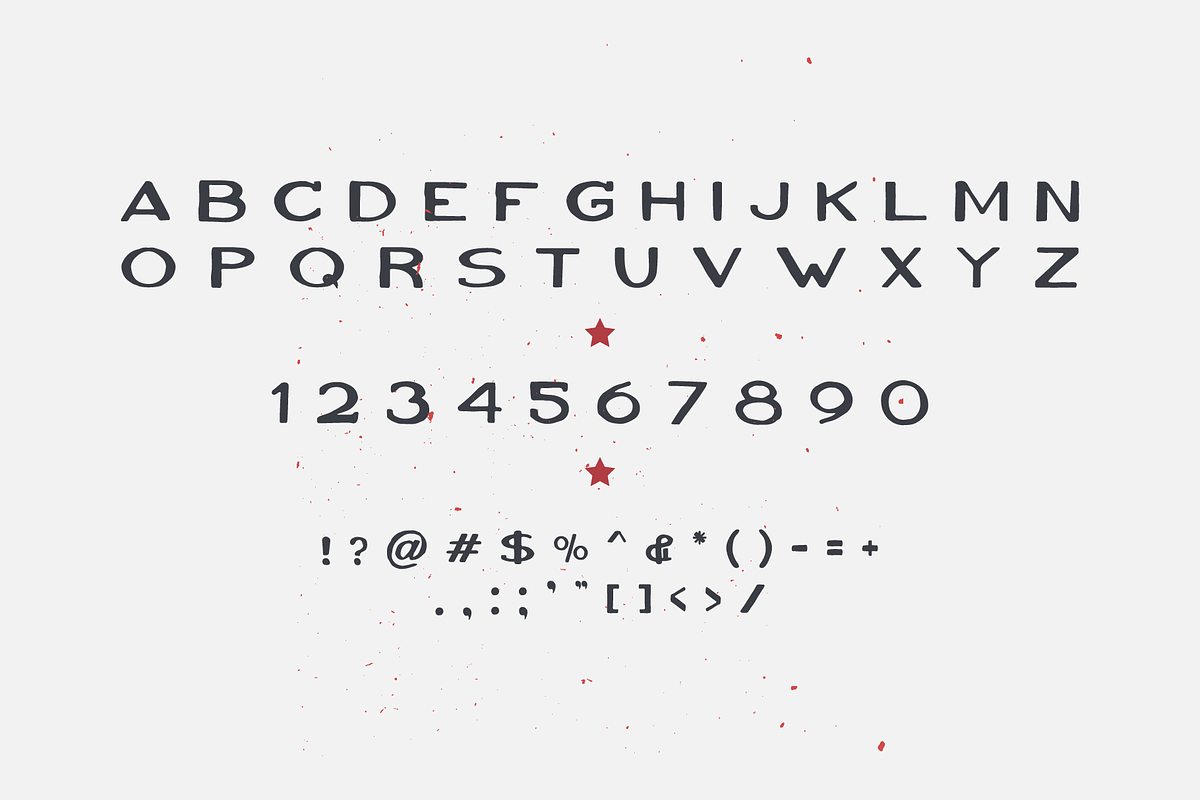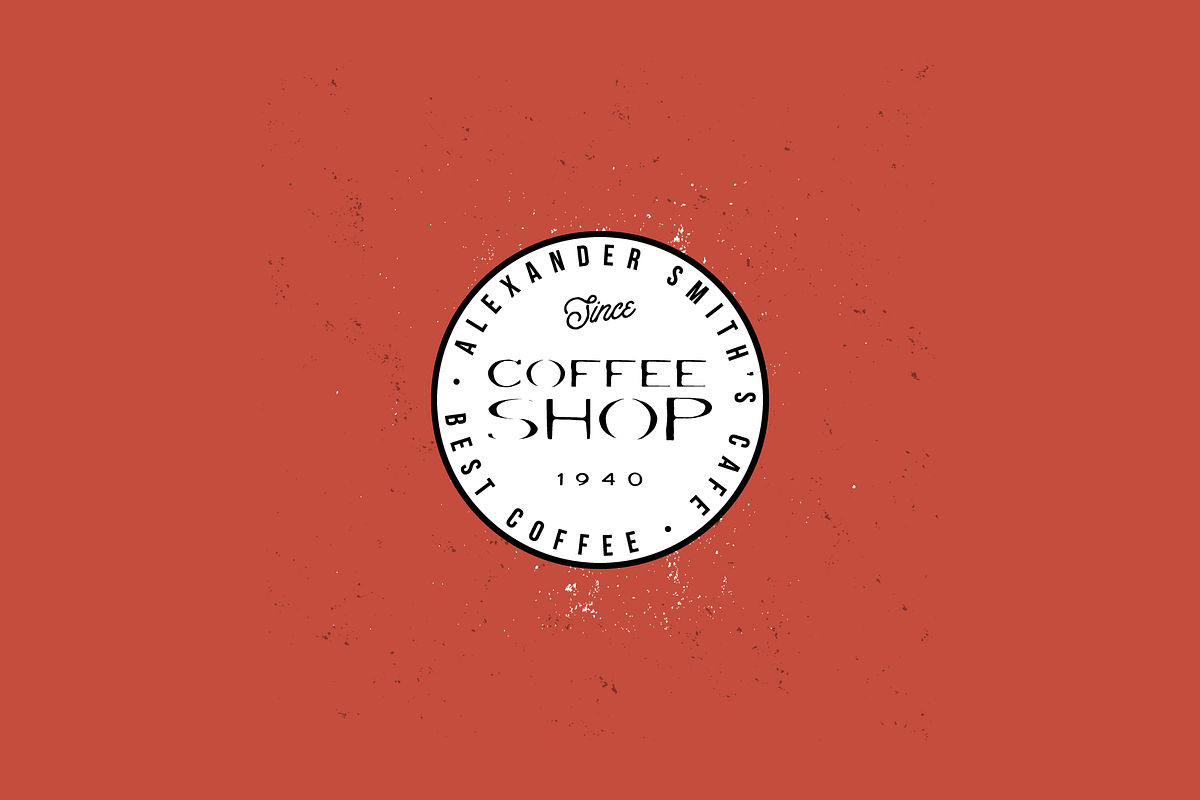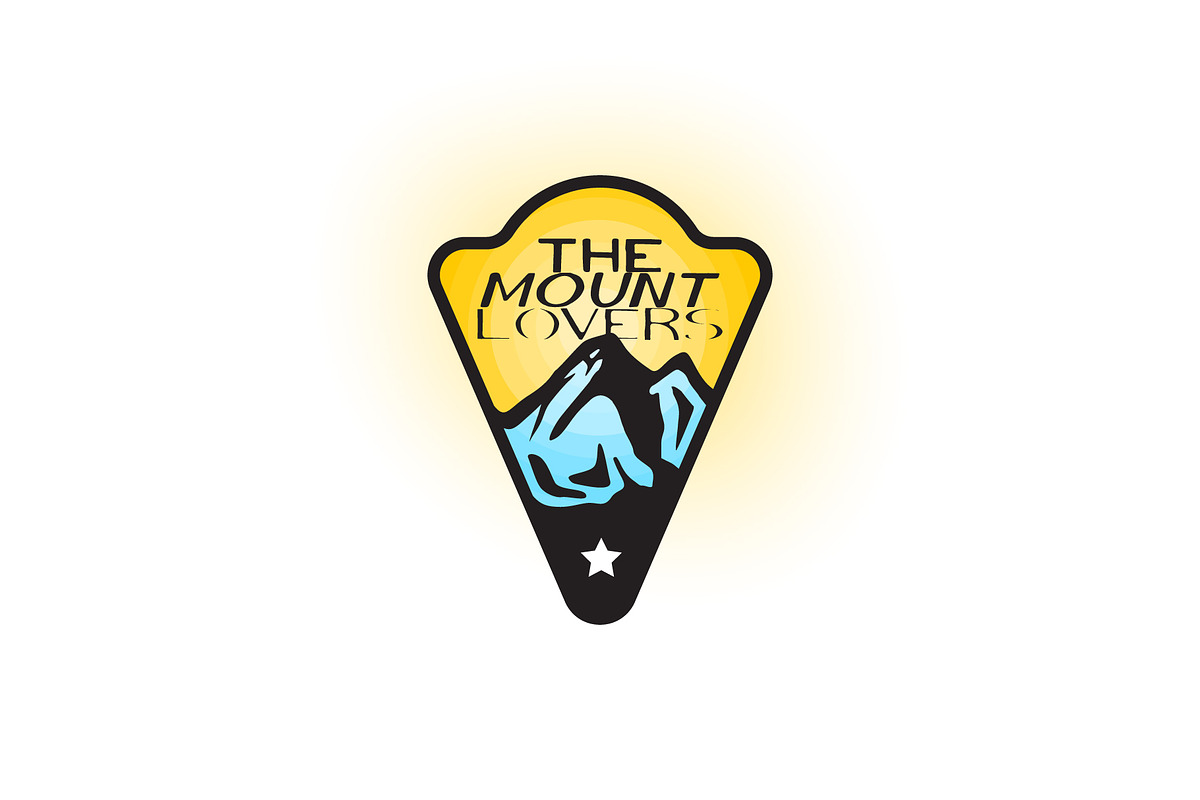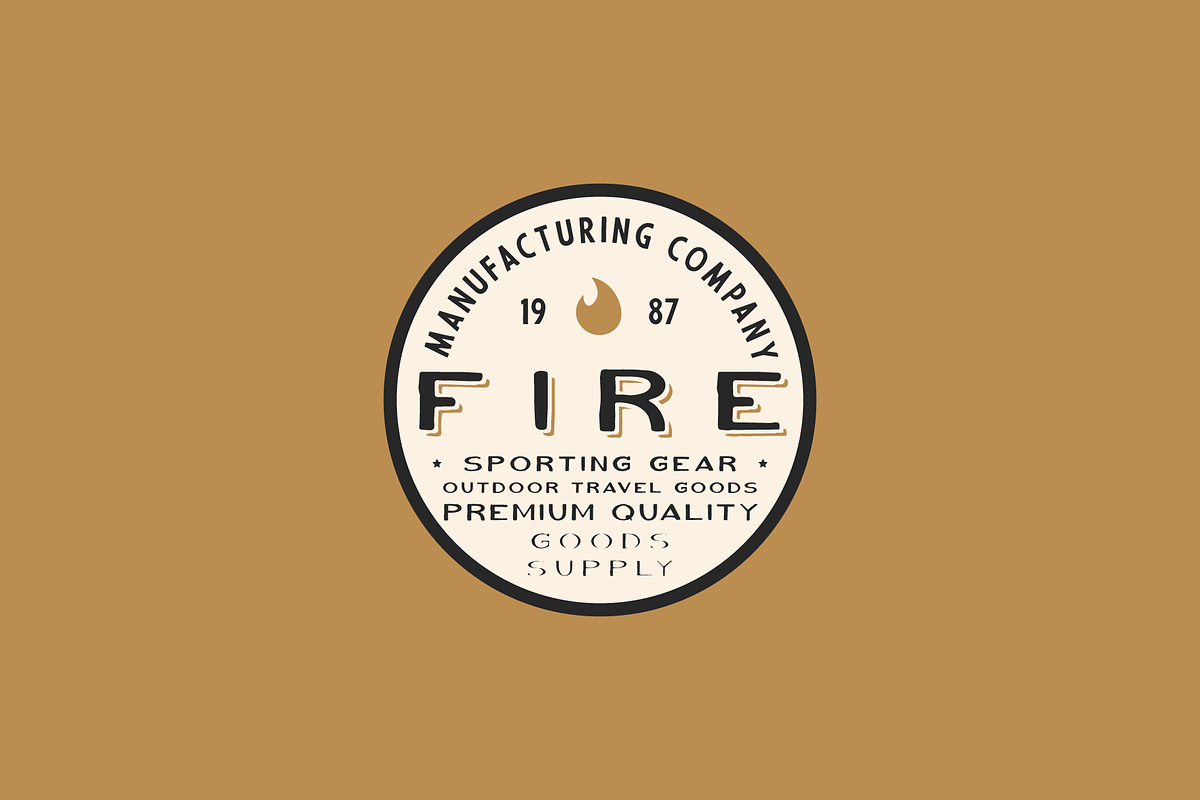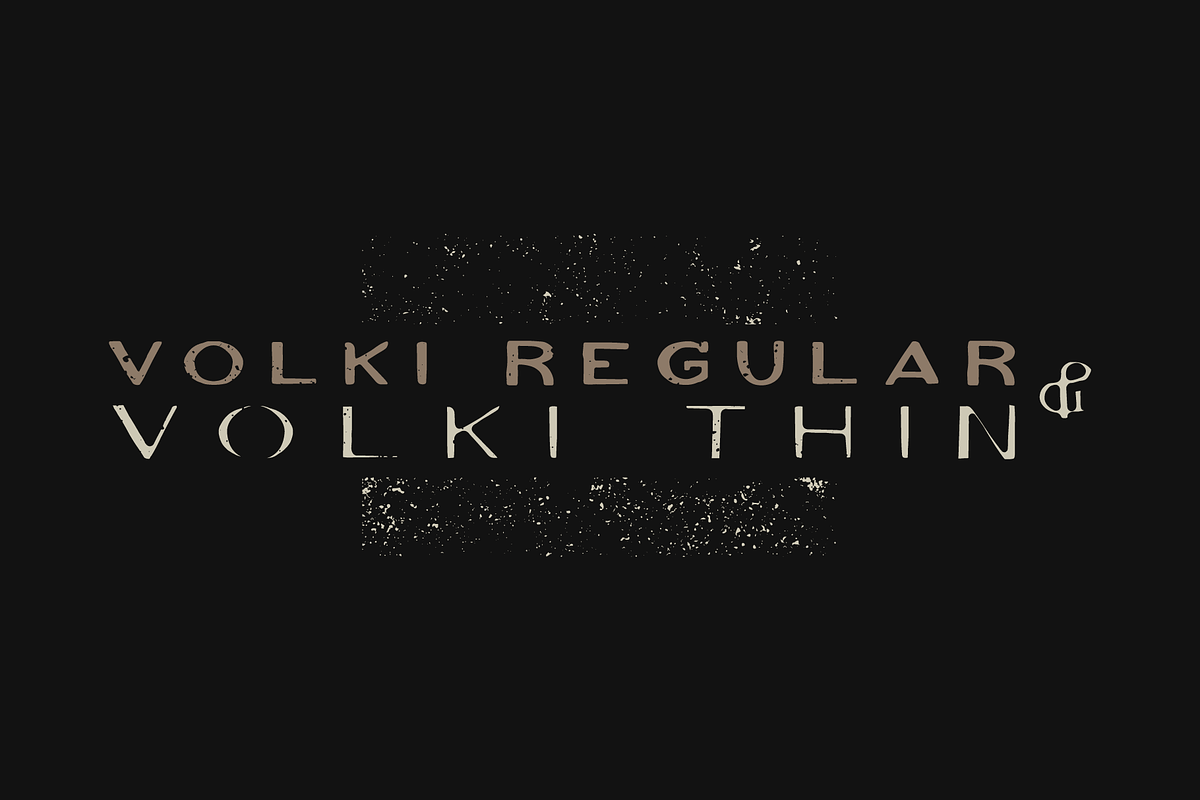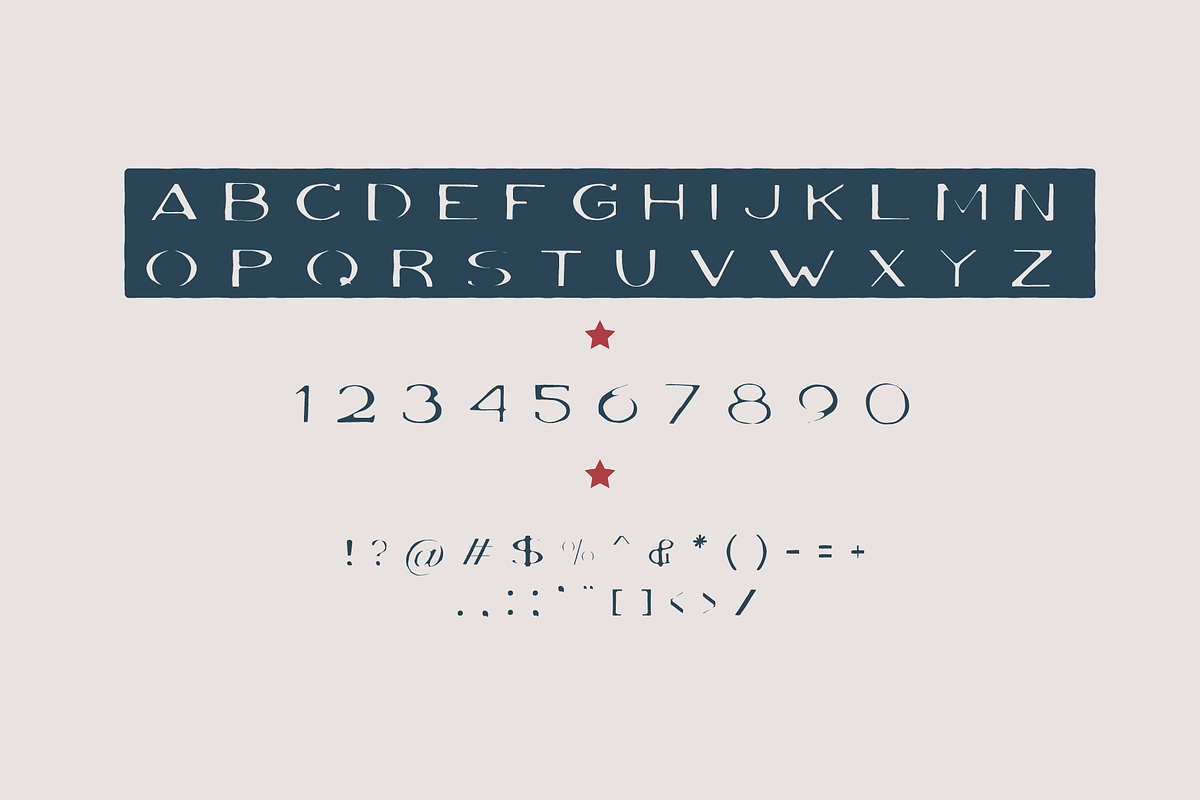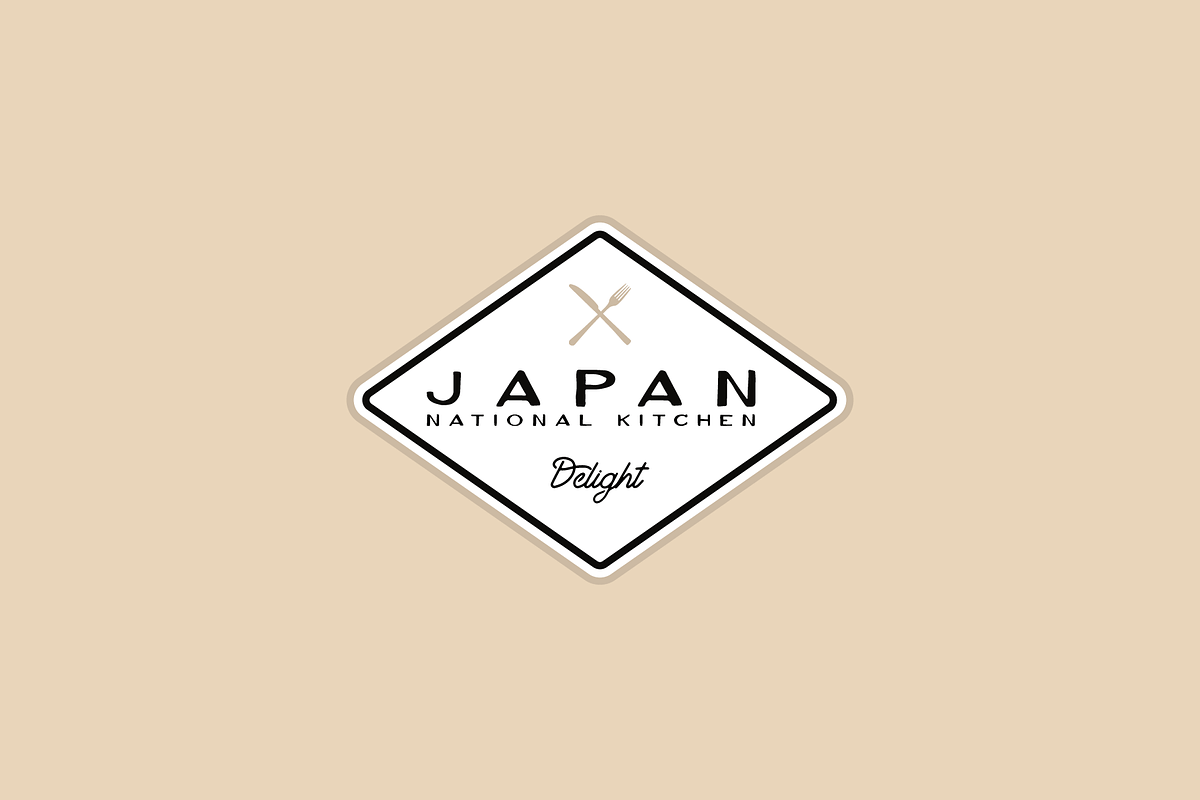
VOLKI - Vintage Handwritten Typeface
Volki - handwritten stretched vintage typeface comes with two styles - regular and thin. Regular it is more vintag, retro typeface, but thin version is more elegant, but not clean and with hand drawn effect.
Volki perfectly combines elegance and roughness, so you can to use it for a wide range of purposes. Number one - a vintage logotypes. Volki created by vintage lover for vintage lovers and is great suited for the main text on the logotype. You can combine Volki Regular and Volki Thin to give individuality to your logo and save one style concept.
However, the use of this font is not limited to just logos. It's also suitable for t-shirt prints, business cards, flyers, posters, ads, restaurant menus, signs, typography design, quotes and any graphic design.
- Volki - handwritten stretched vintage typeface comes with two styles - regular and thin.